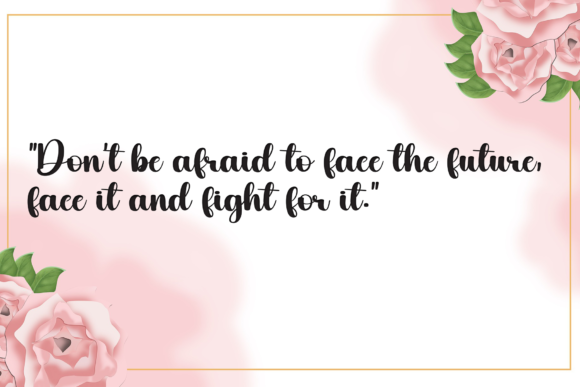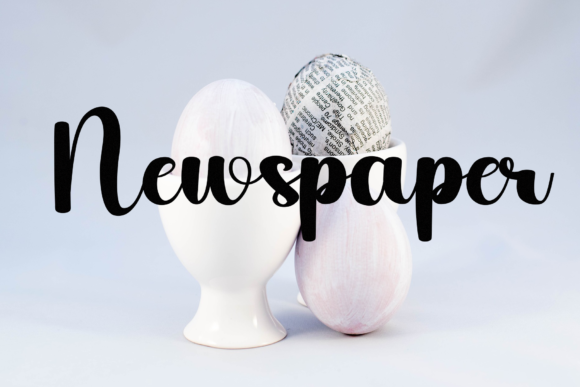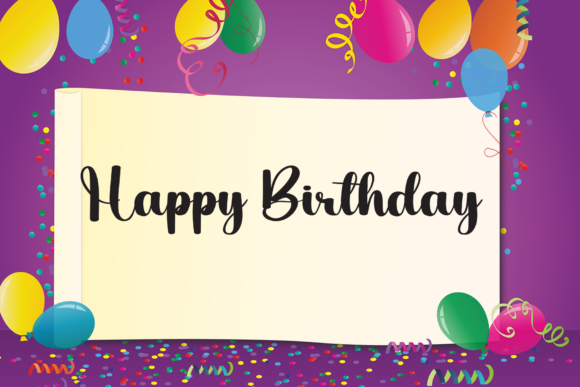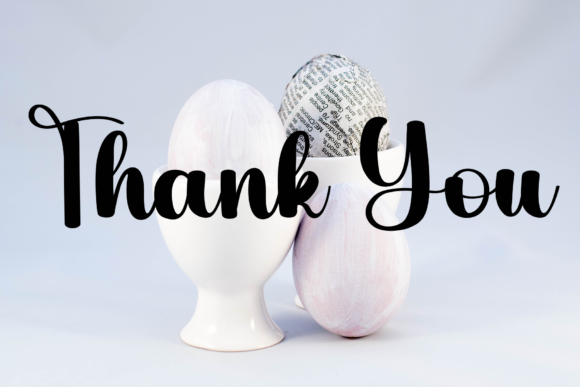
Introducing Garlic Font: Elevate Your Designs with a Touch of Luxury
Are you on the hunt for a font that adds a dash of whimsy and sophistication to your design projects? Look no further than Garlic Font, a sweet, flowing, and thin script font that’s sure to make your creations stand out. With its unique characters that dance along the baseline, Garlic Font is the perfect choice for designers and crafters looking to add a touch of luxury to their work.
What Makes Garlic Font So Special?
Garlic Font is more than just a beautiful script font – it’s a game-changer for designers and crafters who want to take their work to the next level. Here are just a few features that make Garlic Font a must-have:
• Sweet and Whimsical Design: Garlic Font features a unique, flowing design that’s both sweet and whimsical. Its thin script lines make it perfect for adding a touch of elegance to any design project.
• Luxury Spark: With its dancing characters and beautiful swashes, Garlic Font adds a luxury spark to any design project. Whether you’re working on a branding project, a wedding invitation, or a craft project, Garlic Font is sure to make it shine.
Uses for Garlic Font
Garlic Font is a versatile font that can be used for a wide range of design projects. Here are just a few ideas to get you started:
• Branding and Logos: Garlic Font is perfect for creating luxury brands and logos that need a touch of elegance and sophistication.
• Wedding Invitations and Stationery: Add a touch of whimsy and romance to your wedding invitations and stationery with Garlic Font.
• Craft Projects: Garlic Font is perfect for crafters who want to add a personal touch to their projects. Use it to create beautiful signs, cards, and other DIY projects.
• Digital Designs: Garlic Font can be used for digital designs, such as social media graphics, blog headers, and more.
Tips for Using Garlic Font
Here are a few tips for getting the most out of Garlic Font:
• Use it as a Headline Font: Garlic Font is perfect for use as a headline font, where its unique design can really shine.
• Pair it with a Simple Font: Pair Garlic Font with a simple font to create a beautiful contrast that really makes your design pop.
• Experiment with Swashes: Don’t be afraid to experiment with the swashes and glyphs that come with Garlic Font. They can add a lot of personality to your designs.
Font Name Garlic Font
Author Harlek studio